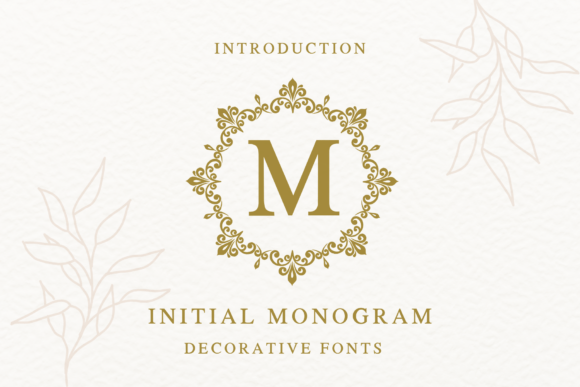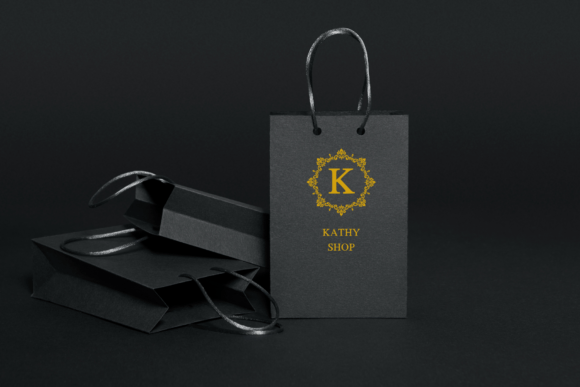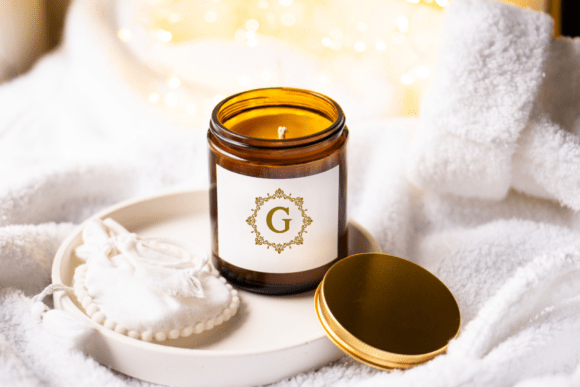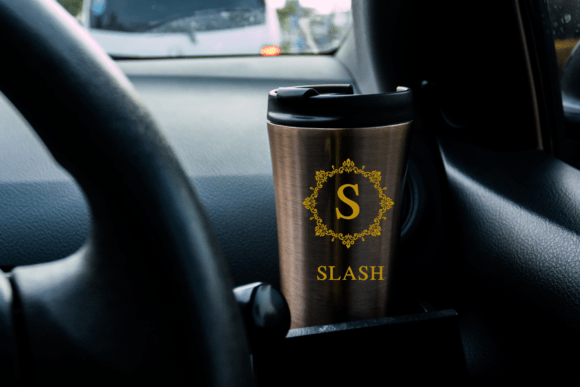
Initial Monogram Font
About the Initial Monogram Font
Experience the unique personality of Initial Monogram Font, a font designed for impact. Initial Monogram Font is elegant serif font that will bring in your projects a touch of luxury and style. It’s perfect match for logotypes, branding, business card, wedding monograms and invitations, blog headlines and much more. Flip through all the previews and get inspired like I was while creating this font.
Its elegant serifs and refined letterforms make it ideal for luxury branding, high-end packaging, and sophisticated stationery. Use it effectively for headlines, short impactful text blocks, and logos where a touch of classic grace is desired. However, its decorative nature makes it less suitable for body text or UI elements requiring high readability.
Consider pairing Initial Monogram Font with a clean sans-serif like Open Sans for body copy, creating a strong contrast that enhances legibility. For a more playful feel, a script font like Great Vibes could add a touch of personality, while a geometric sans-serif like Futura would offer a modern counterpoint.
The font projects an air of sophisticated elegance and timeless style, making it a perfect choice for brands aiming for a premium and refined image.
Initial Monogram Font Usage Examples
Initial Monogram Font Example